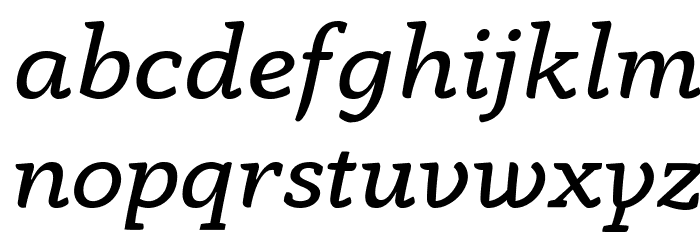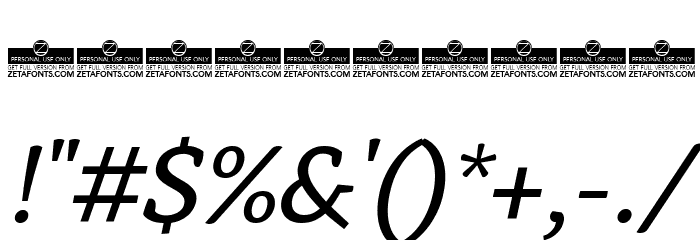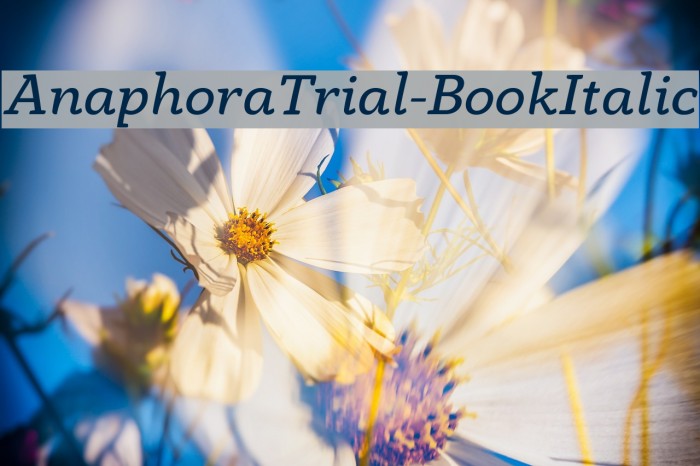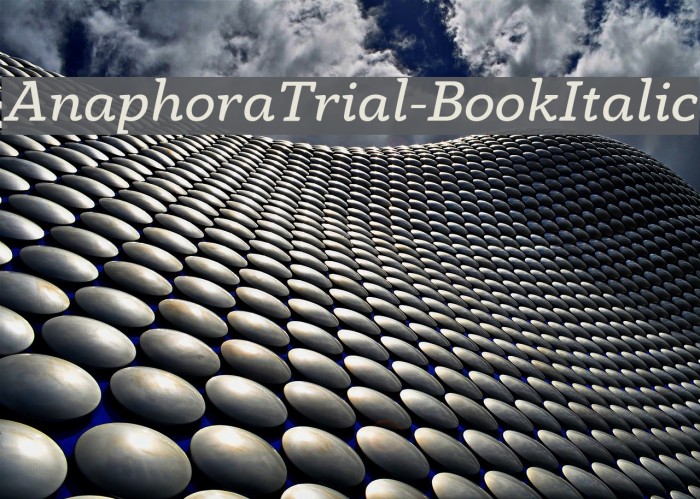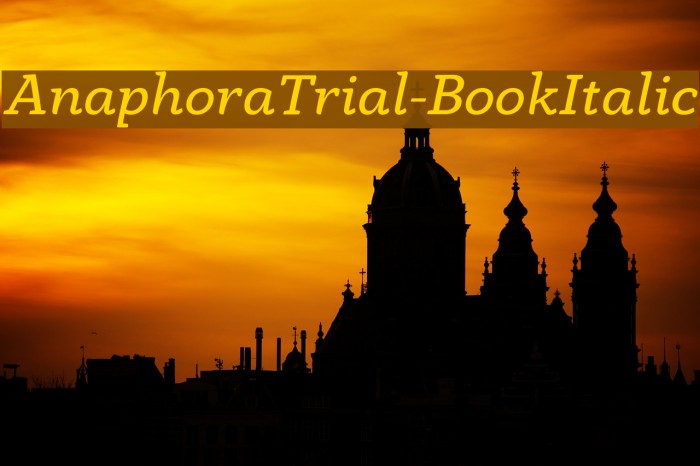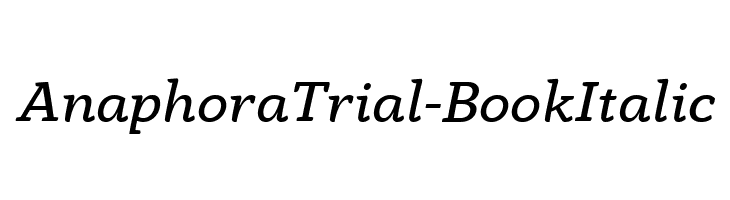
AnaphoraTrial-BookItalic Font
This font exhibits a classic and elegant style with a slight slant, indicative of its italic nature. The characters are well-defined with smooth curves and a moderate contrast between thick and thin strokes, giving it a refined appearance. The uppercase letters are tall and commanding, while the lowercase letters maintain a consistent flow, enhancing readability. The numerals are clear and distinct, matching the overall aesthetic of the alphabet. Special characters are thoughtfully designed to complement the letterforms, making this font versatile for various applications.
A classic italic font with smooth curves and moderate contrast, offering elegance and readability.
- Proposed Projects: Ideal for projects requiring a touch of sophistication, such as wedding invitations, formal event programs, elegant branding, and editorial design.
- Category: Serif
- Overall Style: Classic